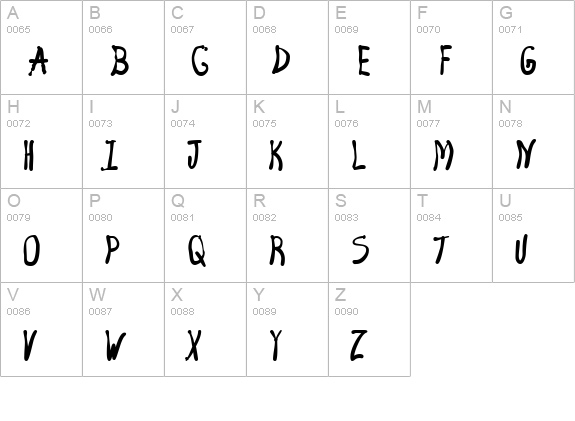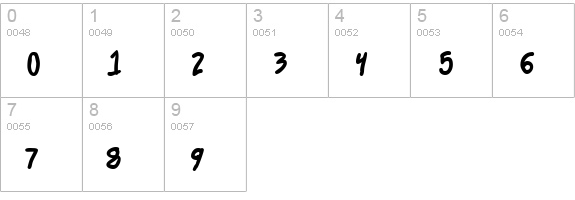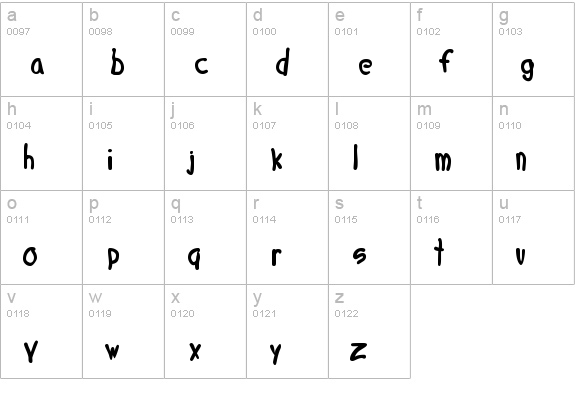
4 Star Face Font Font Details
4 Star Face Font is a stunning and versatile typeface that exudes elegance and sophistication. With its unique design and intricate details, this font is perfect for adding a touch of luxury to any project. The sharp edges and bold lines of 4 Star Face Font make it ideal for creating eye-catching headlines, logos, and branding materials. Whether you're working on a print design, website, or social media graphics, this font will surely make a statement. What's even better is that 4 Star Face Font is available for free download at FontsMarket.com. This means that you can easily access this premium font without breaking the bank. So why wait? Elevate your designs with the exquisite beauty of 4 Star Face Font today!